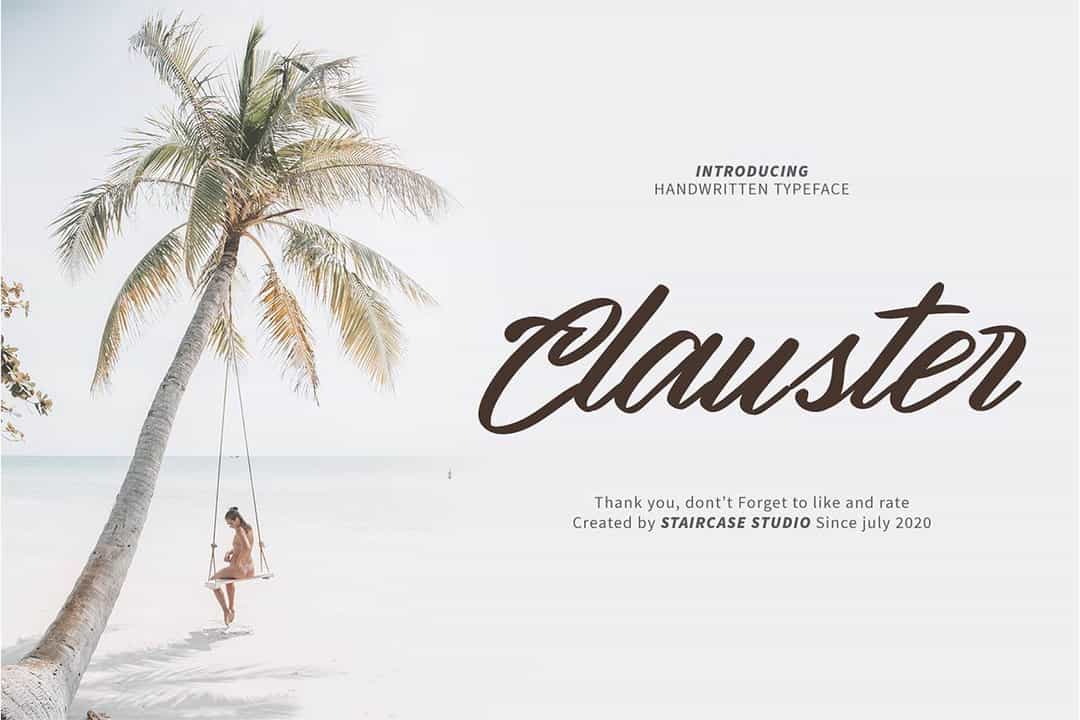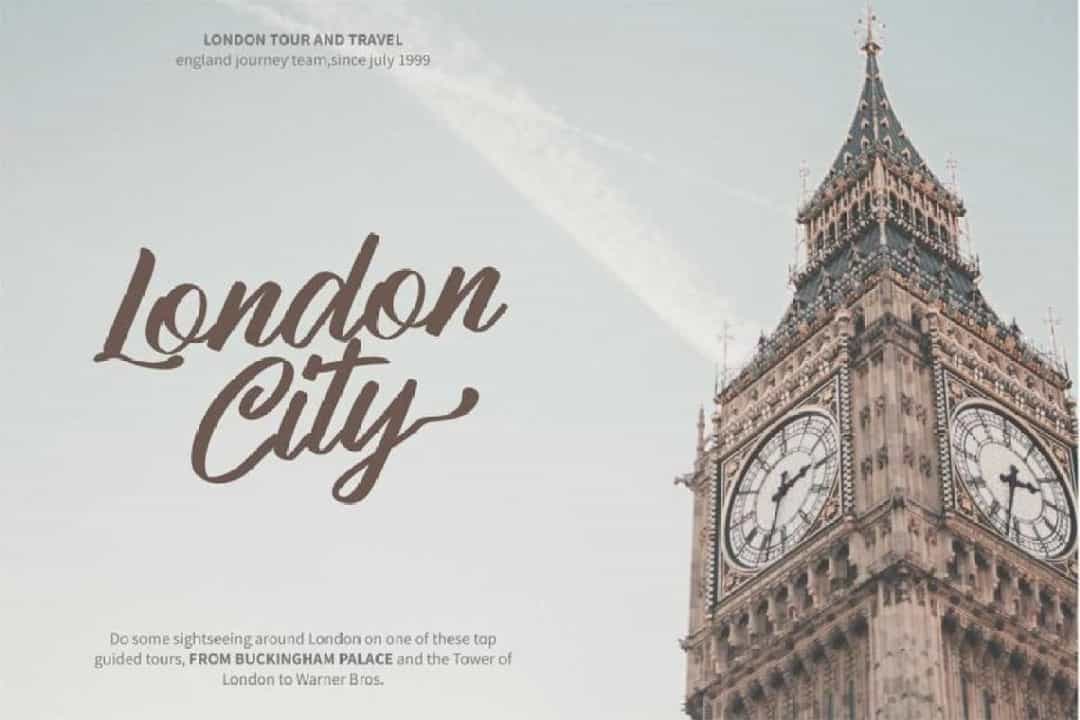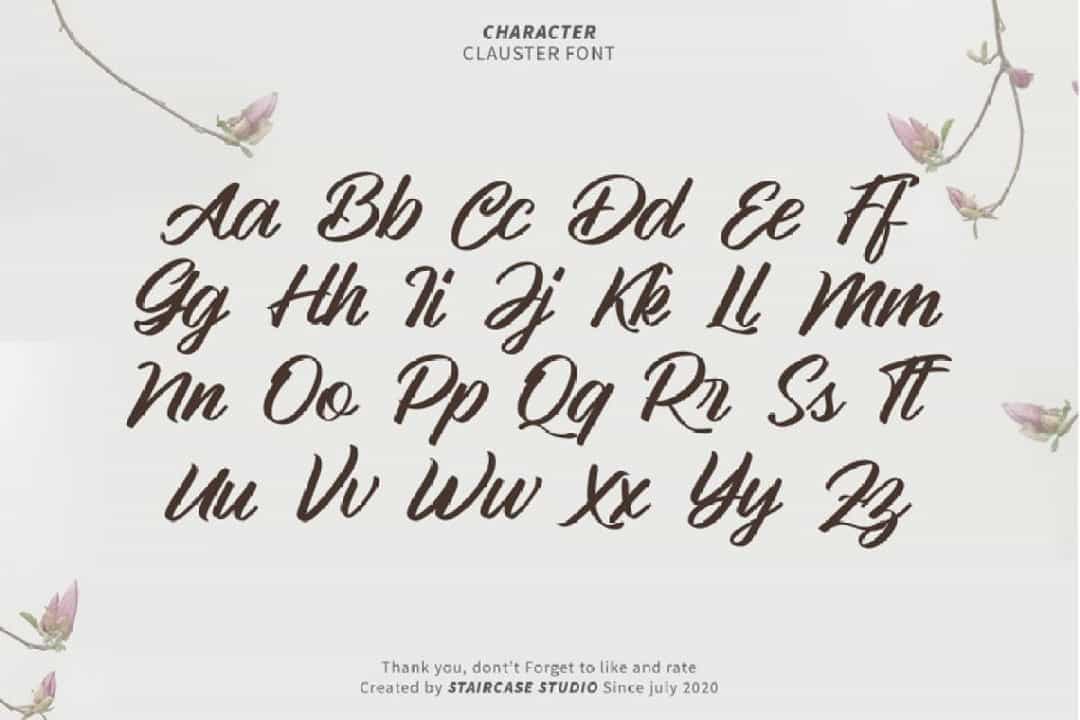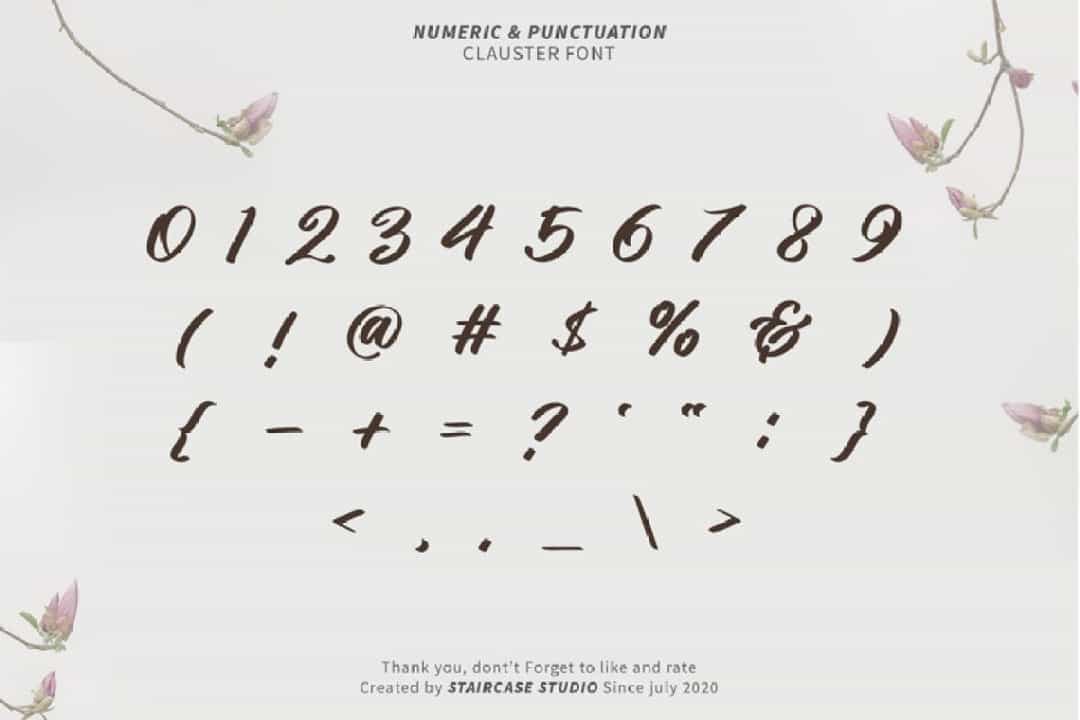
Discover Clauster Script Font, part of the Calligraphy Handwritten Script collection—a versatile and unique font perfect for adding a personal touch to your projects. Download it for free and enjoy crafting designs with style, from invitations to social media posts. This font is available exclusively for personal use, giving you the freedom to create without limits. Unlock your creativity with Clauster Script Font today!
Clauster is a script type with natural curves of script and straight lines. There are two additional styles: Regular as well as Italic. Clauster Font ideal for logos, handwritten quotes, product packaging, headers, posters, merchandise, social media, greeting cards, magazines, banners, etc.